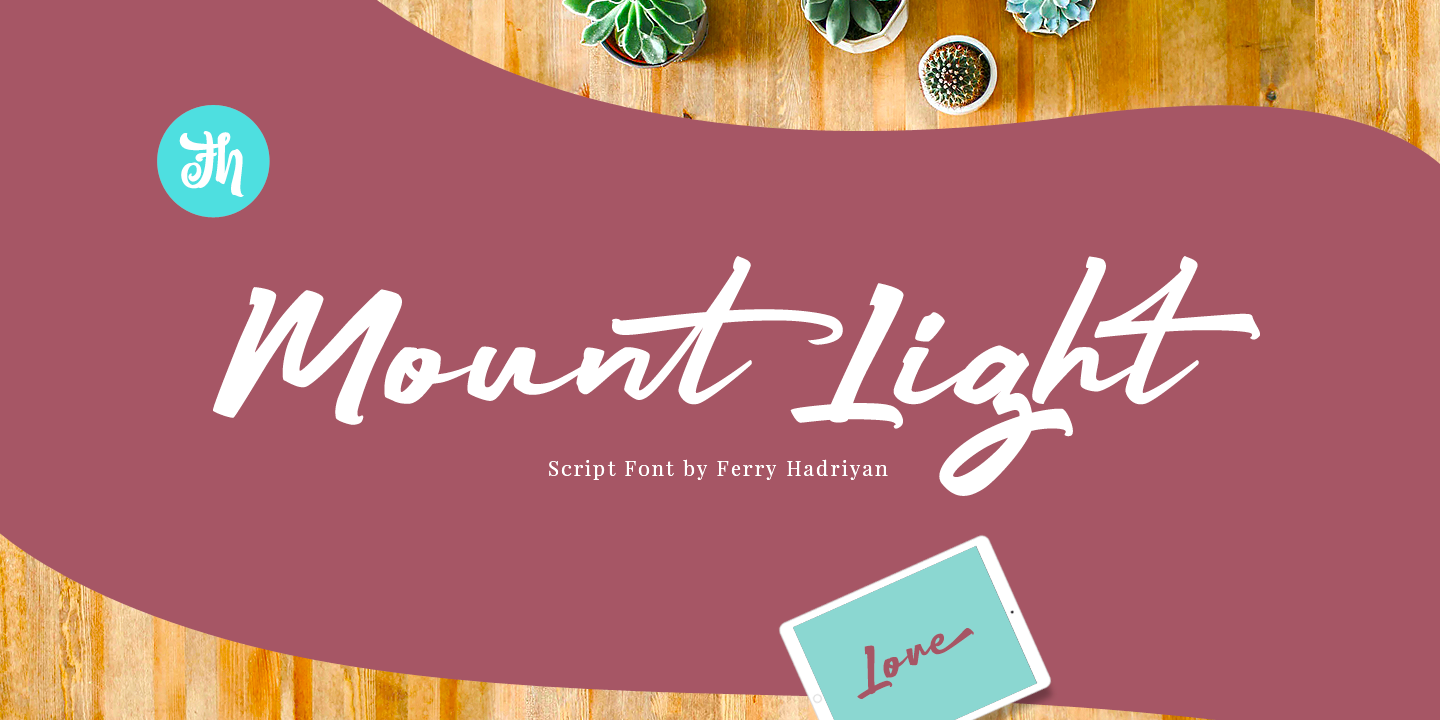
Mount Light Font is ideal for serene design applications including meditation center branding, wellness retreat materials, mindfulness app interfaces, yoga studio signage, spiritual wellness packaging, holistic therapy branding, peaceful spa environments, and tranquil advertising campaigns that require typography with luminous character and ethereal lightness.
What makes Mount Light Font exciting is its extraordinary ability to capture the essence of spiritual illumination and peaceful elevation through delicately crafted letterforms that embody the serenity of mountain peaks touched by divine light. This ethereal typeface features weightless characteristics with luminous details and ascending proportions that instantly communicate enlightenment, spiritual clarity, and transcendent peace. The font's enlightened personality and celestial appeal make it perfect for brands seeking to establish connection with spiritually-minded audiences and communicate values of peace, clarity, and spiritual elevation.
Mount Light Font family encompasses multiple weights and luminous variations designed for comprehensive spiritual communication. The family typically includes ultra-light, light, regular, and medium weights, complemented by ethereal alternates, enlightened ligatures, and extensive character sets with spiritual symbols that enhance its luminous aesthetic and provide maximum transcendent impact.
Spiritual wellness designers consistently choose Mount Light Font Free Download for projects requiring typography that embodies spiritual illumination and peaceful transcendence. This luminous typeface delivers exceptional spiritual resonance across wellness applications, from digital meditation platforms to peaceful retreat materials, ensuring consistent brand messaging with unmistakable spiritual authority and enlightened appeal. The font's delicately crafted letterforms maintain excellent readability while delivering the luminous presence that spiritual brands demand. Mindfulness-focused agencies worldwide rely on this enlightened typeface to communicate brand values of peace, spiritual clarity, and transcendent wellness. Ascend to spiritual heights with Mount Light Font and create memorable visual communications that resonate with audiences who appreciate spiritual illumination, peaceful transcendence, and the luminous power of enlightened design that guides souls toward inner peace and spiritual clarity.